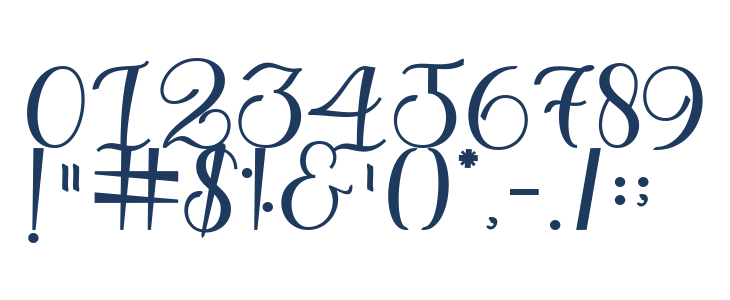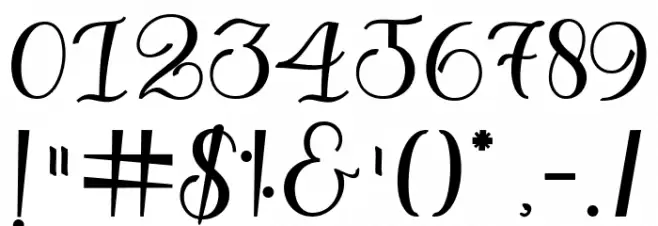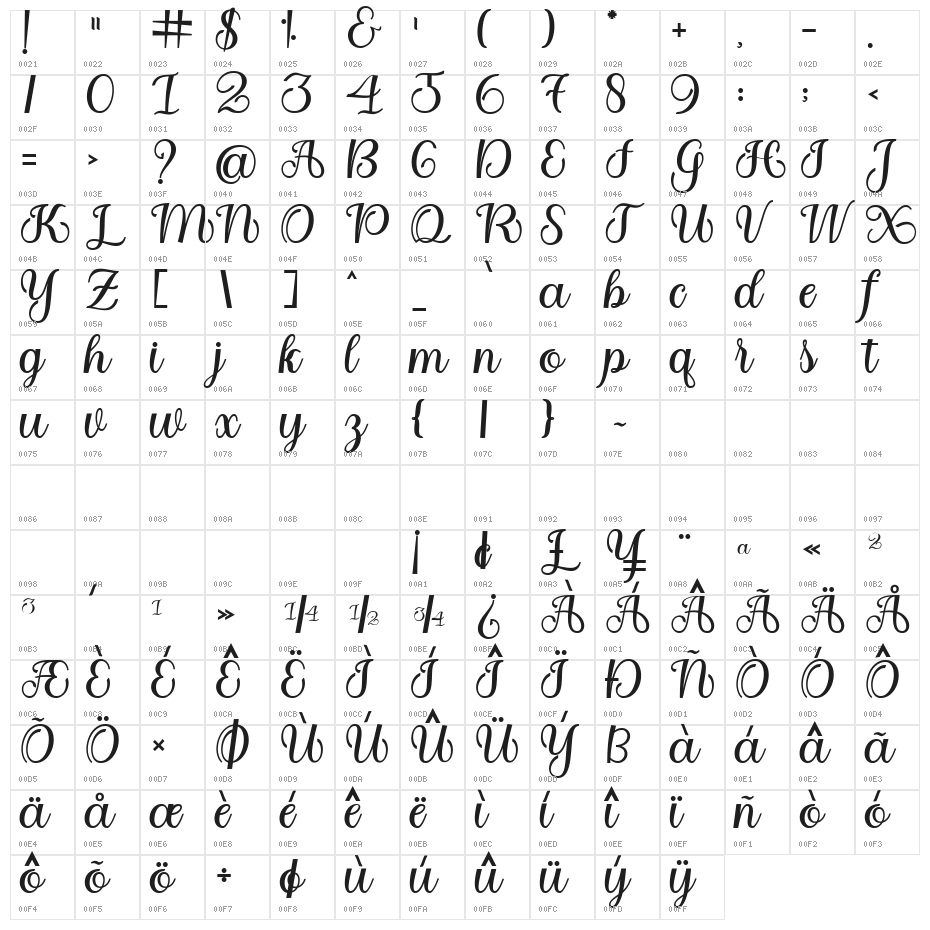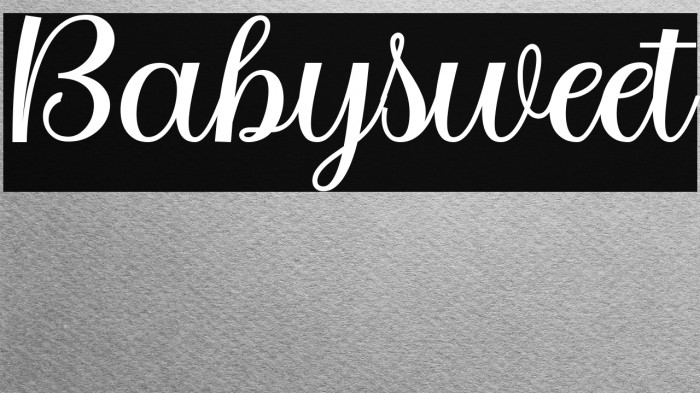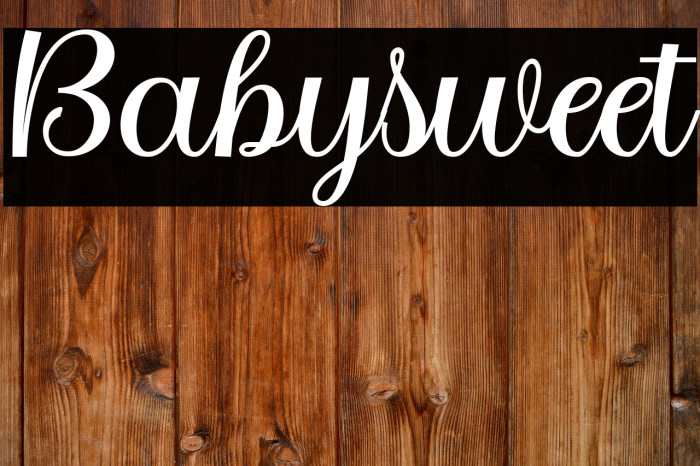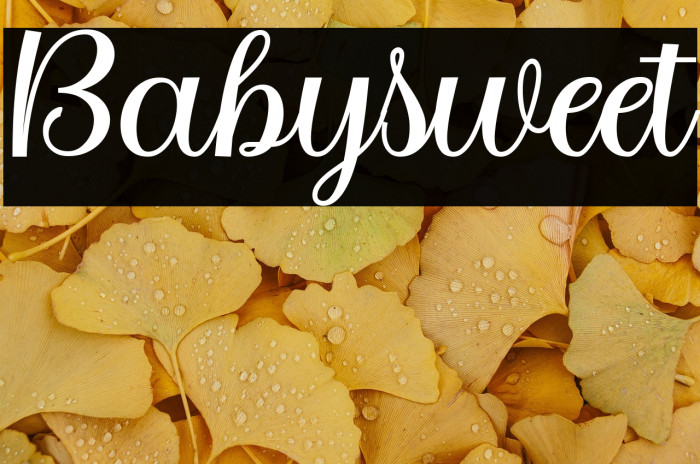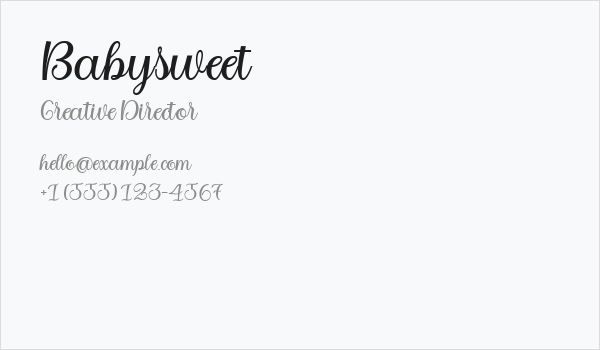
Babysweet Font
Babysweet Description
This font features a playful and elegant script style, characterized by its flowing, cursive letterforms. Each character is crafted with smooth curves and a consistent stroke width, giving it a harmonious and balanced appearance. The uppercase letters are slightly more ornate, with subtle flourishes that add a touch of sophistication. The lowercase letters maintain a friendly and approachable feel, making the font versatile for various uses. Numbers and special characters are designed to match the overall aesthetic, ensuring a cohesive look across all text elements.
A playful and elegant script font with smooth, flowing curves from Regular fonts.
- Font: Babysweet
- Proposed Projects: Ideal for wedding invitations, greeting cards, branding projects, and social media graphics.
- Overall Style: Elegant
- Use Case: Logos, Invitations, Social Media